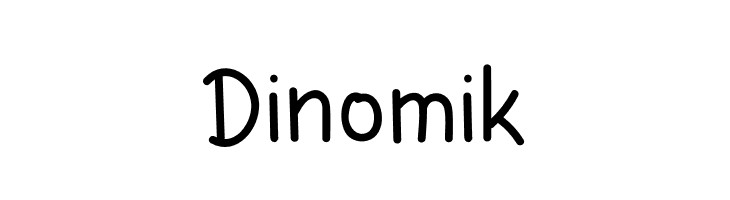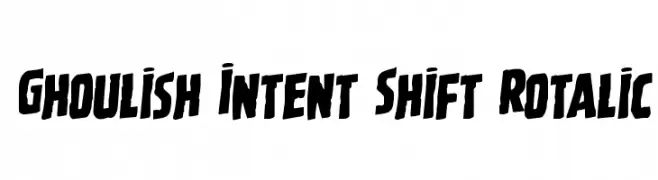
A modern, italicized, and condensed font with a bold, sleek design.
A sleek, modern font with geometric lines and a futuristic style.
A bold, angular serif font with a strong presence.
A distressed, artistic font with a rough, textured appearance.
A playful, handwritten font with bold, irregular strokes.
A geometric, layered font with a modern, tech-inspired design.
An intricate Blackletter-style font with bold, angular lines and ornate detailing.
A playful, hand-drawn font with rounded, bold characters.